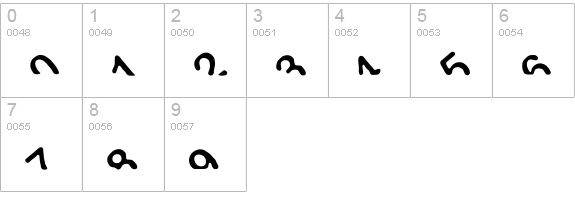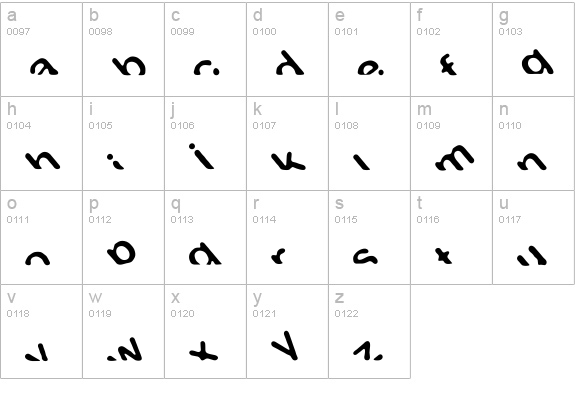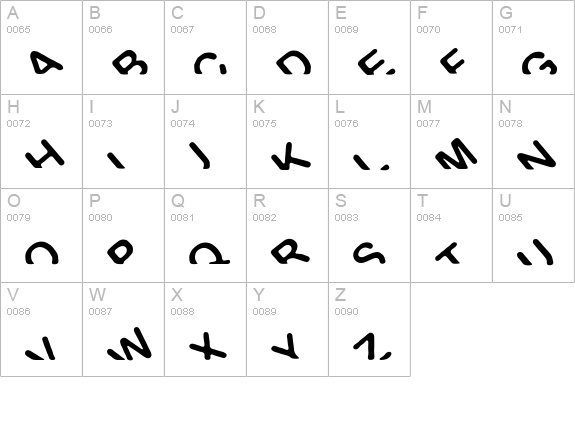
Titanic Font Details
Introducing the exquisite Titanic font, a stunning display typeface that exudes elegance and sophistication. Inspired by the iconic luxury liner, this font features intricate details and a timeless appeal. The Titanic font is perfect for creating eye-catching headlines, branding materials, invitations, and more. What makes Titanic font even more appealing is that it is available for free download at FontsMarket.com. Yes, you read that right - this premium font can be yours at no cost! Don't miss out on the opportunity to add a touch of luxury to your projects with the Titanic font. Download it today and elevate your designs to new heights.